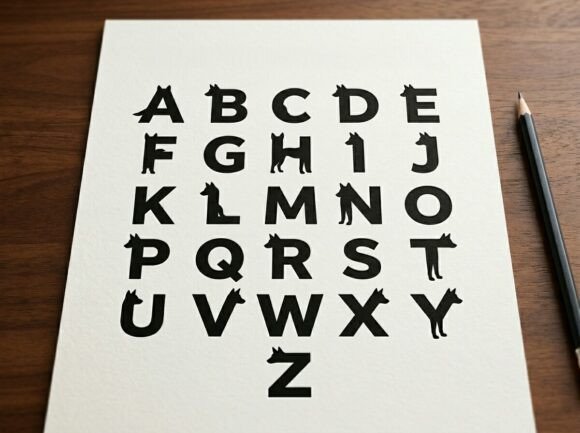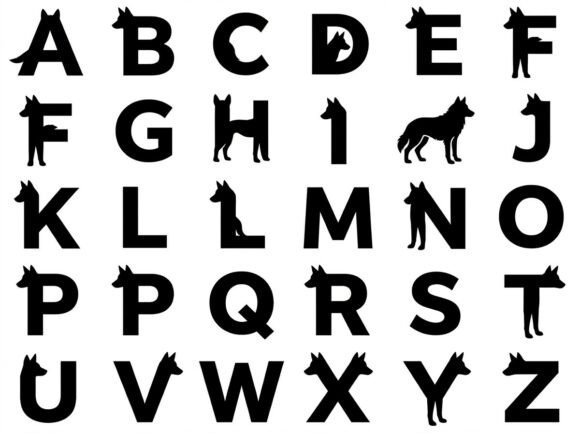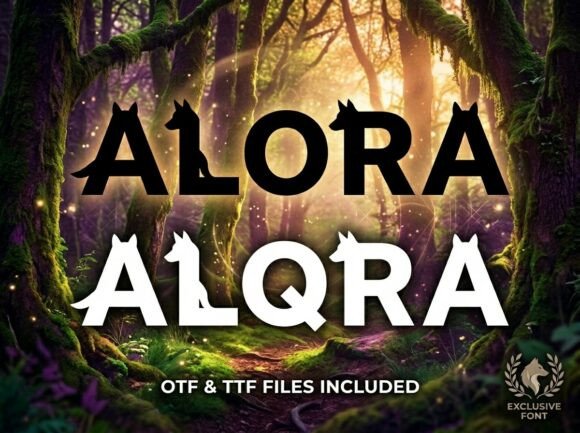
Unleash the Wild with Alora Font: A Unique Display Typeface Inspired by the Australian Outback
Are you tired of using the same old fonts for your designs? Look no further than Alora Font, an exclusive display typeface that combines bold typography with the rugged spirit of the Australian outback. This innovative font is perfect for designers and crafters looking to add a touch of wild elegance and artisanal charm to their projects.
A Font Like No Other: Geometric Sans-Serif Letterforms Meet Dingo Silhouettes
Alora Font features heavy, geometric sans-serif letterforms that are masterfully integrated with dingo silhouettes. The primary stems and negative spaces of each character are artfully combined with the organic curves of the dingo’s form, creating a unique monogram that is both bold and beautiful. This distinctive design makes Alora an extraordinary choice for a variety of applications, from wildlife sanctuary branding to nature documentary titles, adventurous outdoor apparel, and conservation campaign logos.
Perfect for Designers and Crafters Who Love the Great Outdoors
Whether you’re designing for a rugged lifestyle brand or a boutique eco-resort, Alora Font delivers a sense of wild elegance and artisanal charm to every word. The font’s unique blend of bold typography and organic curves is sure to capture the attention of outdoor enthusiasts and nature lovers alike. Imagine using Alora to create eye-catching logos, brochures, and website headers for a wildlife sanctuary or conservation organization. The font’s rugged, adventurous feel is perfect for brands that want to evoke a sense of freedom and exploration.
Stand Out from the Crowd with Alora’s Unique Character Set
One of the most striking features of Alora Font is its unique character set. Each character is a one-of-a-kind monogram, carefully crafted to combine the geometric lines of the font with the organic curves of the dingo’s form. This attention to detail makes Alora a standout choice for designers who want to create truly memorable and impactful designs. Whether you’re working on a logo, title sequence, or packaging design, Alora’s distinctive characters are sure to leave a lasting impression.
So, what can you create with Alora Font? The possibilities are endless! Here are just a few ideas to get you started:
- Wildlife sanctuary branding: Use Alora to create a bold and memorable logo for a wildlife sanctuary or conservation organization.
- Nature documentary titles: Add a touch of wild elegance to your nature documentary titles with Alora’s unique character set.
- Adventurous outdoor apparel: Use Alora to create eye-catching logos and branding for outdoor apparel and gear companies.
- Conservation campaign logos: Create impactful logos for conservation campaigns with Alora’s bold and distinctive typography.
- Boutique eco-resort branding: Use Alora to create a unique and memorable brand identity for a boutique eco-resort or sustainable tourism company.
Alora Font is a game-changer for designers and crafters who want to add a touch of wild elegance and artisanal charm to their projects. With its unique blend of bold typography and organic curves, this innovative display typeface is perfect for a variety of applications, from wildlife sanctuary branding to nature documentary titles and adventurous outdoor apparel. So why settle for the same old fonts when you can unleash the wild with Alora?